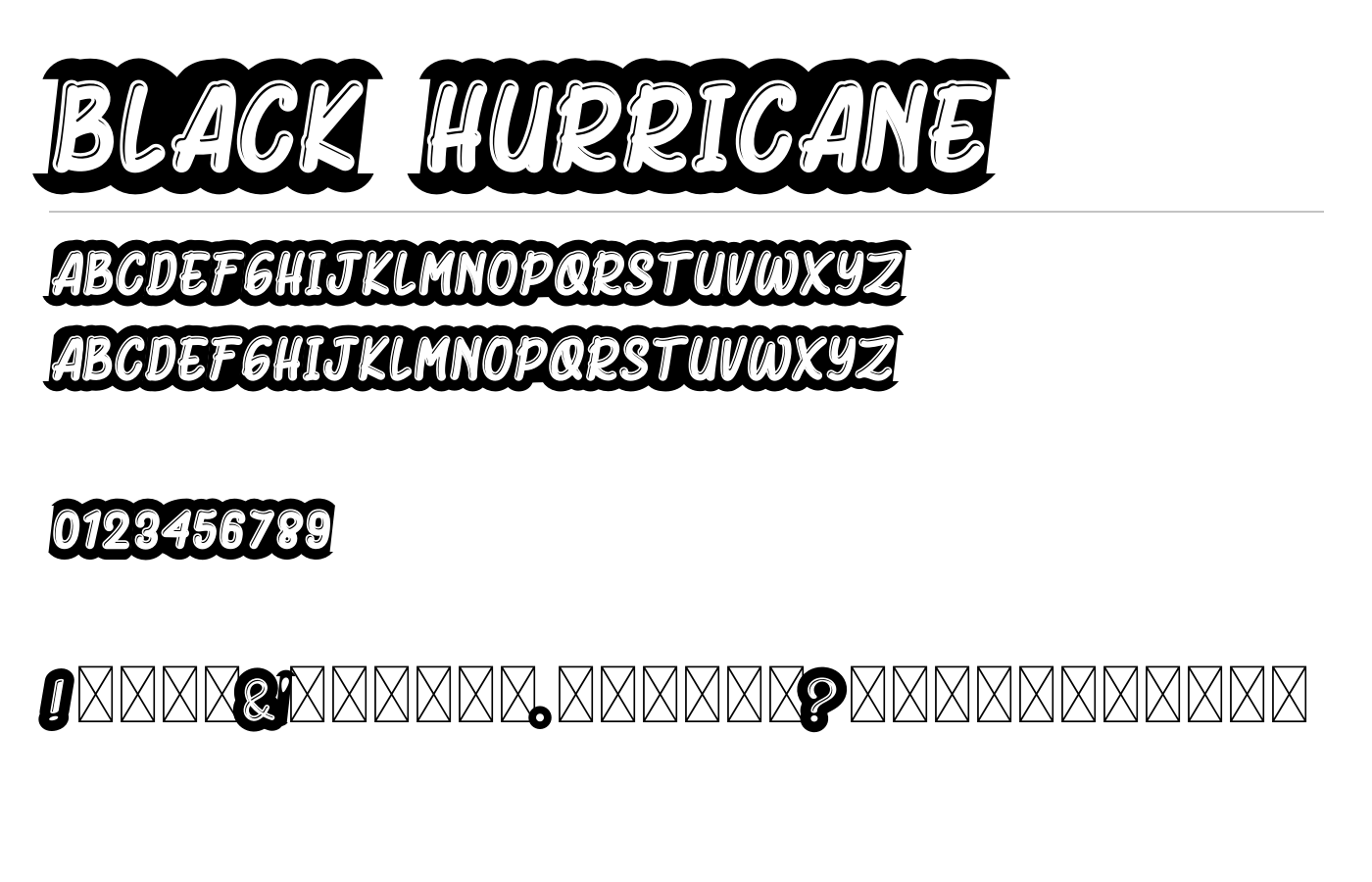
Black Hurricane is a bold, playful sans serif font with a hand-drawn brush script style and a thick black shadow that adds strong visual impact. Its energetic, slightly condensed letterforms and lively strokes make it perfect for attention-grabbing headlines, logos, and designs that need a fun, dynamic personality. This font works great for casual branding, posters, and packaging where a friendly yet bold statement is desired.
Black Hurricane Font
About Black Hurricane Font